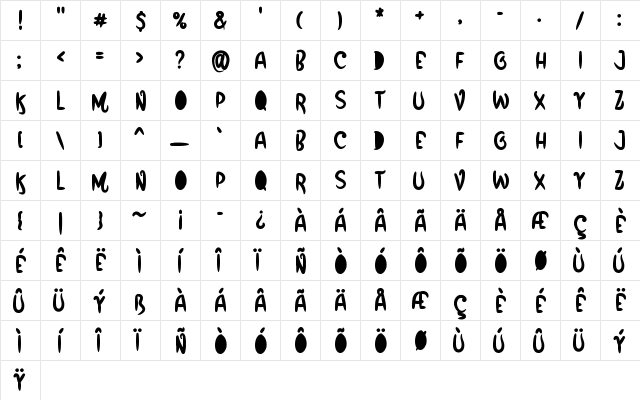
Funbox - Personal Use Only Regular
| Designer | Md. Shohail Bhuian |
Design Context for Funbox - Personal Use Only Typeface
Funbox - Personal Use Only has an approachable, lighthearted character — its loose, expressive forms are well-suited to children's content, casual branding, and fun-first design.
Font Pairing: Pairs well with a rounded or humanist sans for body copy, maintaining the friendly tone without relying on Funbox - Personal Use Only to carry extended reading.
Pro Tip: Use Funbox - Personal Use Only at larger display sizes where its expressive character can land. Pair with a clean, simple sans for body copy to maintain readability.